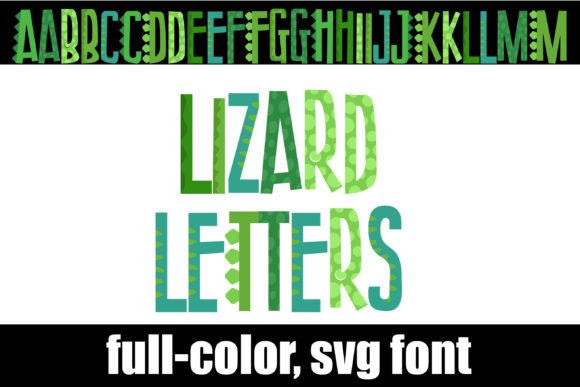
Introducing Lizard Letters Font, the ultimate font family that transports you to the exuberant spirit of St. Patrick's Day. Step into a world of vibrant hues and captivating characters that radiate joy and festivity.
Lizard Letters is not just another font; it's an artistic journey that brings your creative visions to life. Its playful shapes, reminiscent of mischievous leprechauns, dance across your designs with an unmatched charm. The eye-catching elements, akin to pots of gold at the end of a whimsical rainbow, add a touch of magic to every word and phrase.
With Lizard Letters, you'll experience the freedom of limitless expression. Whether you're crafting digital masterpieces, creating captivating social media posts, or designing enchanting print materials, this font family is your trusted companion. Its versatility extends beyond the confines of St. Patrick's Day, making it a treasure for any occasion that calls for a touch of whimsy and wonder.
So, embark on an extraordinary typographic adventure with Lizard Letters. Let your words dance with delight, spread joy like confetti, and create designs that capture the essence of pure enchantment. Embrace the magic of Lizard Letters and transform your creative projects into masterpieces of mirth and merriments.